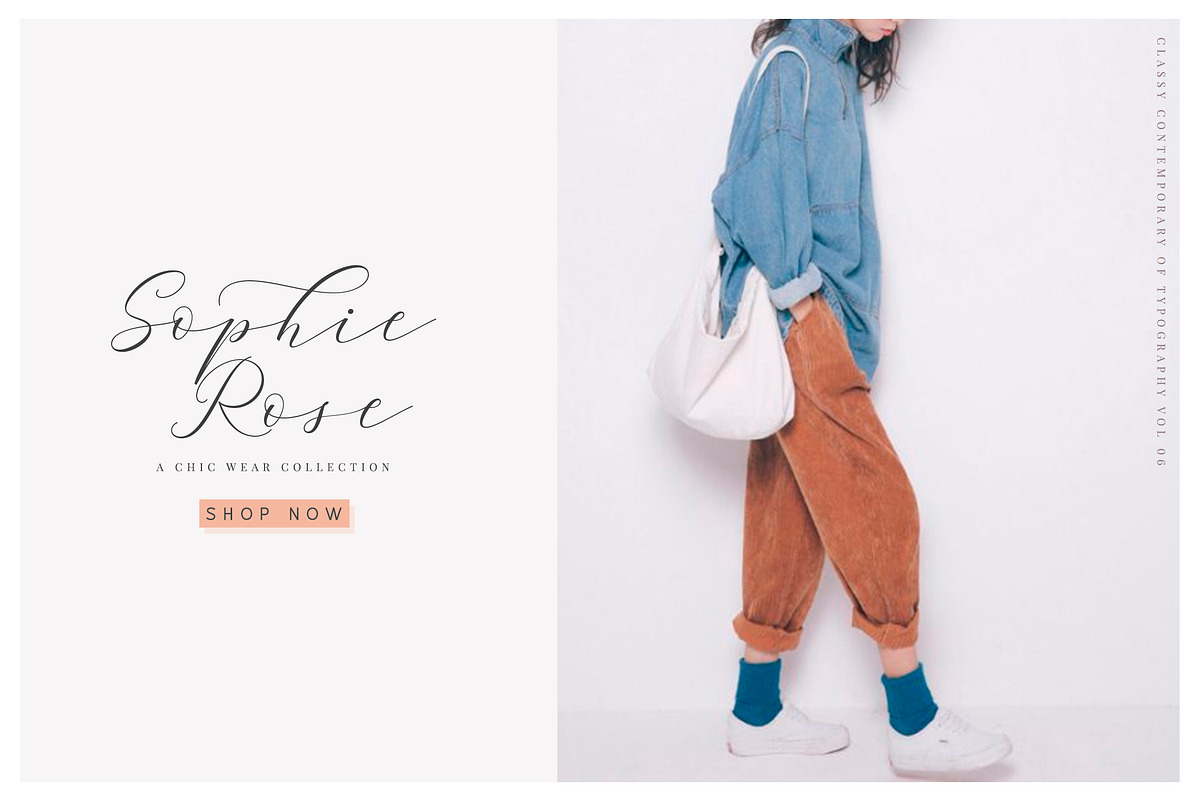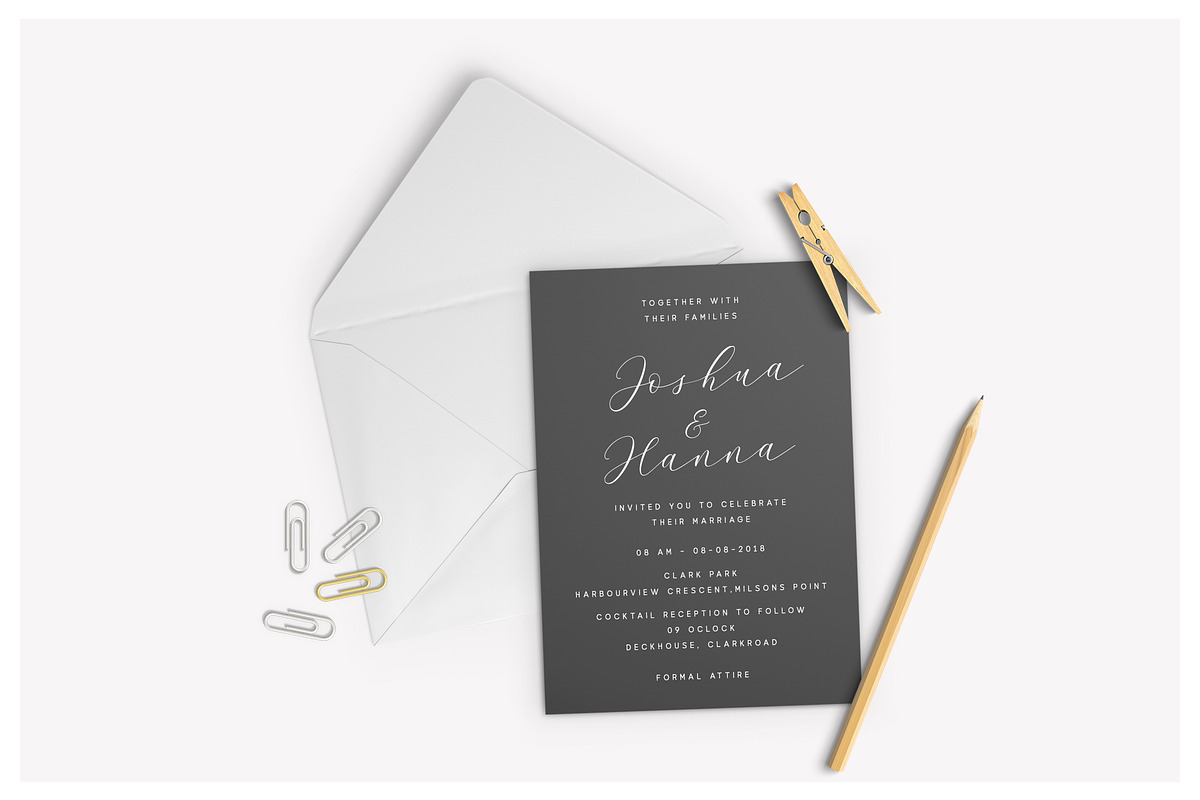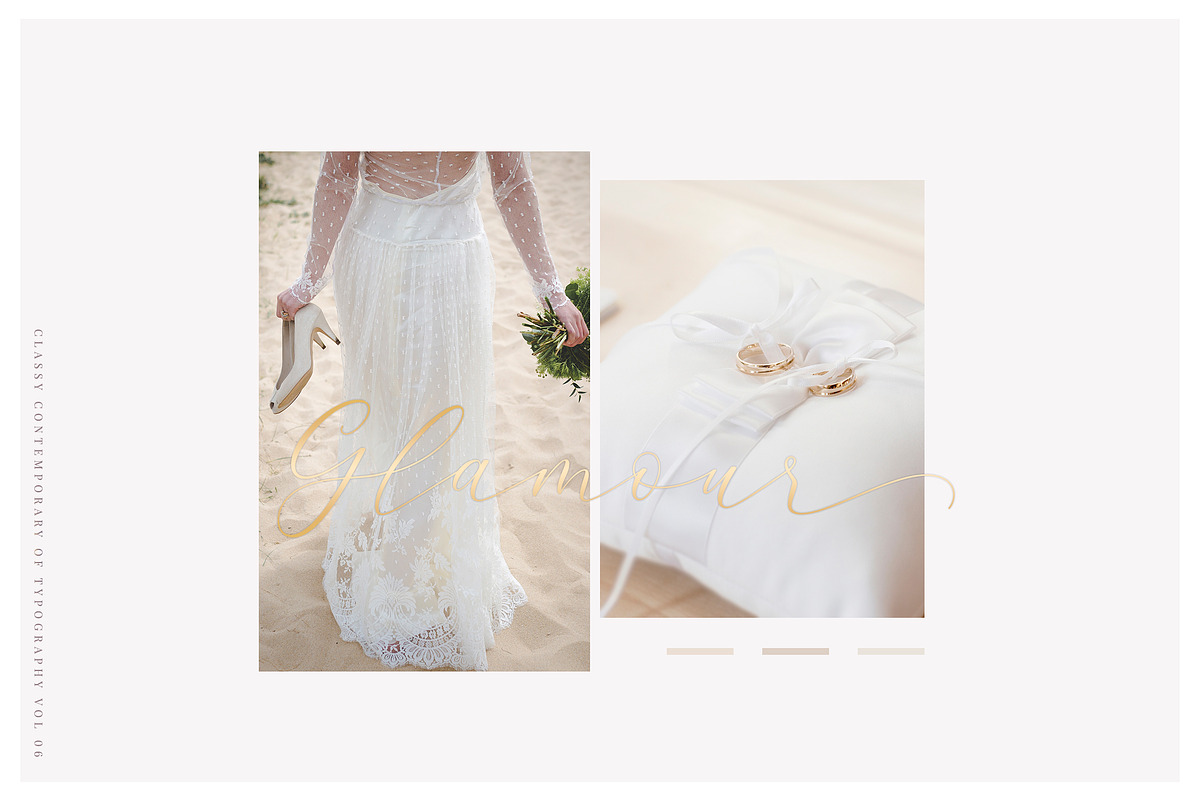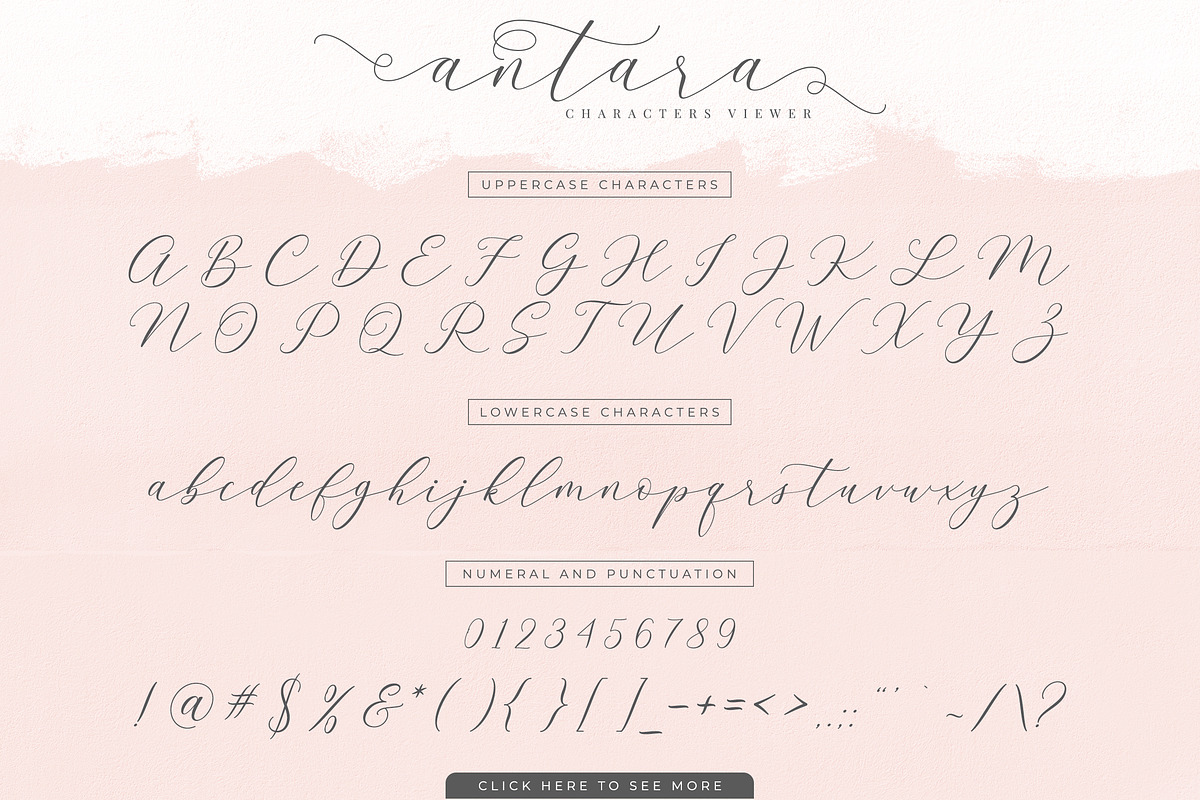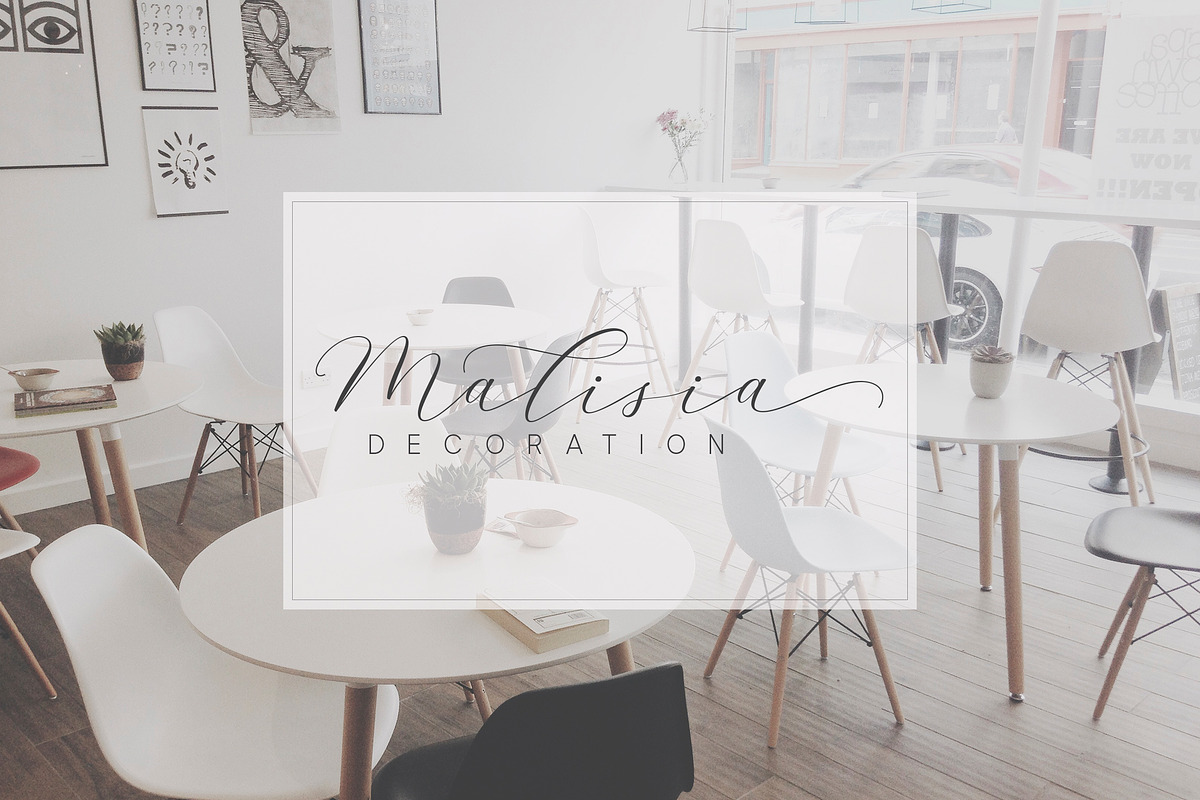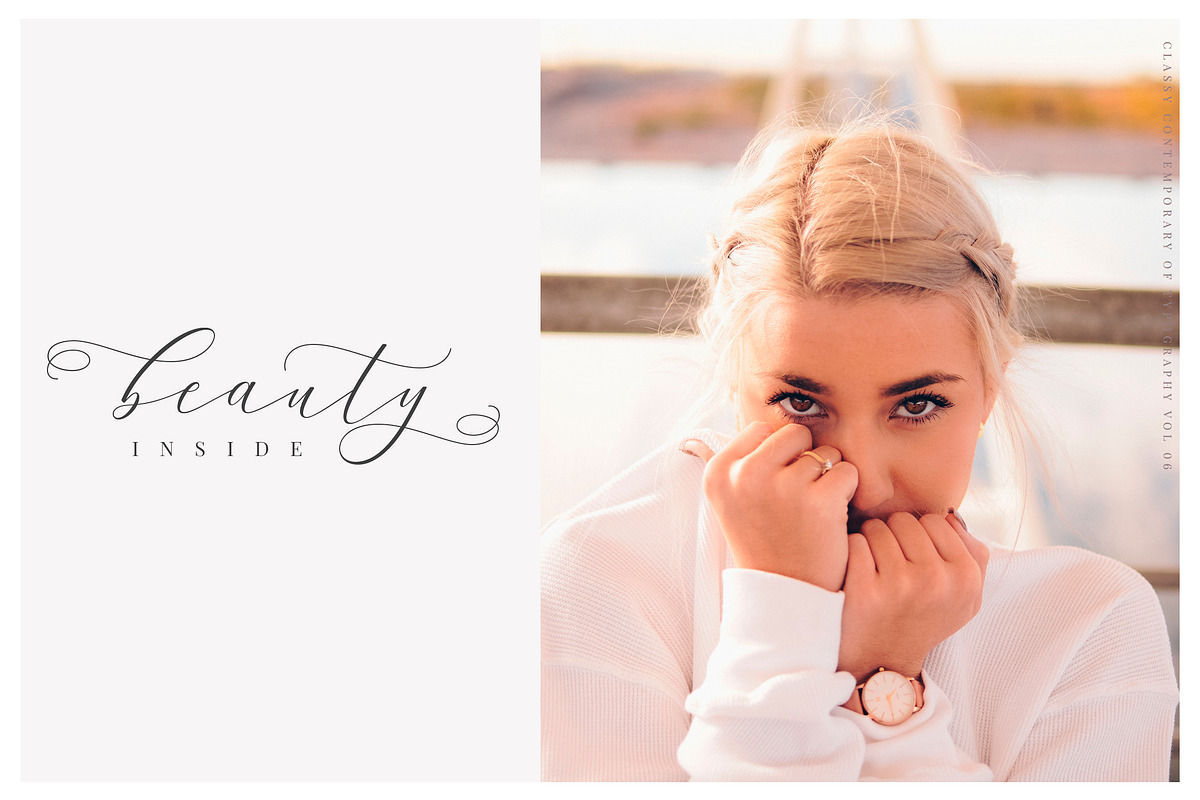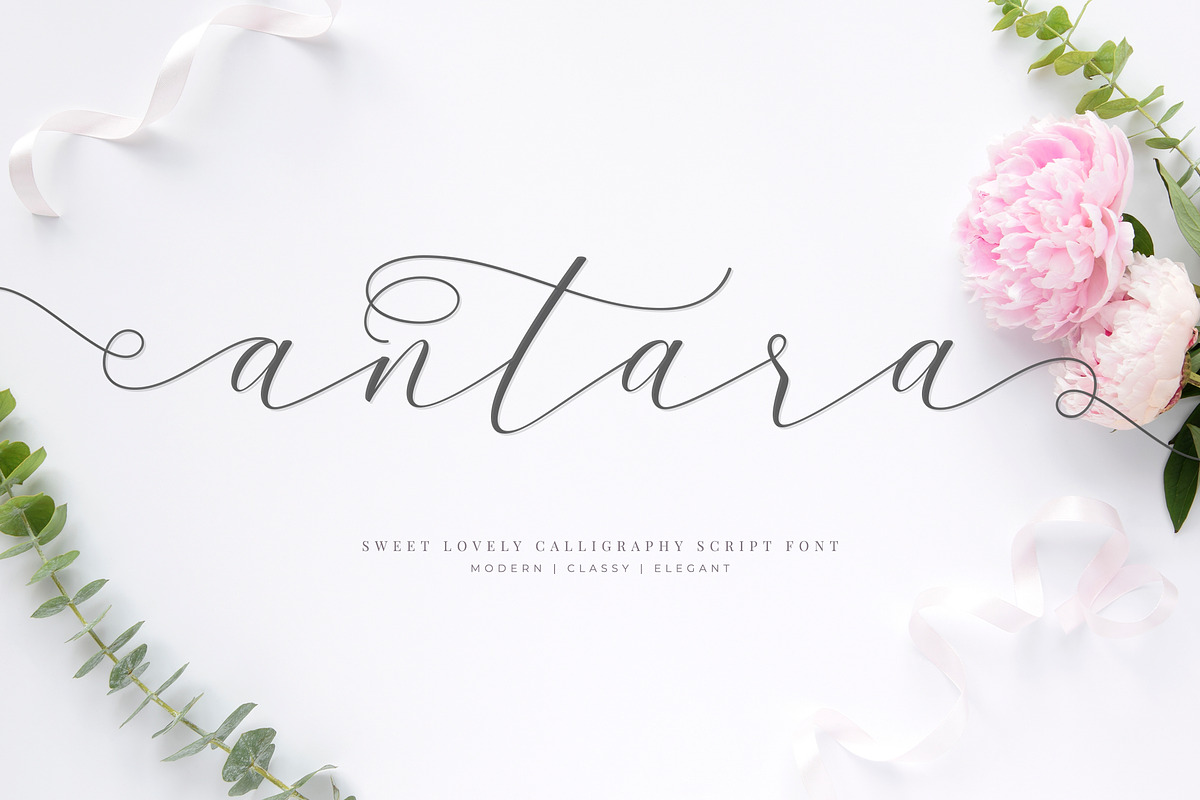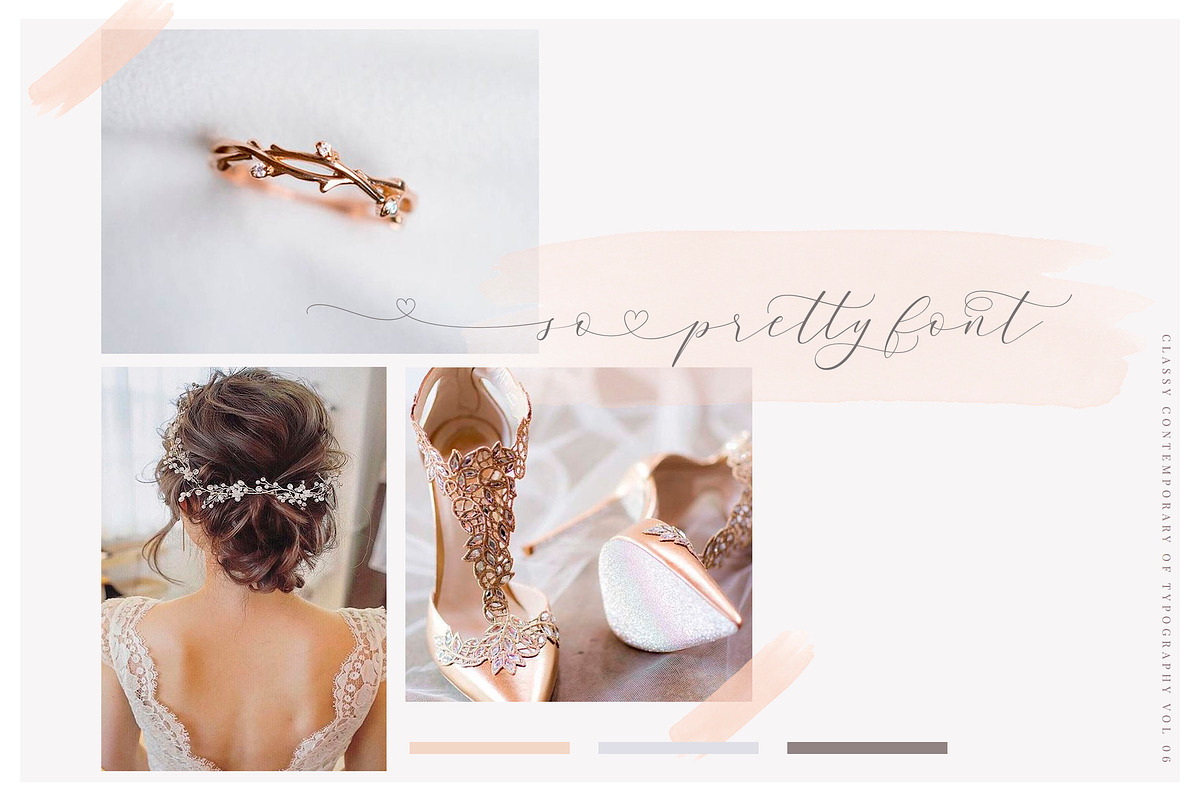
Antara Script Wedding Font
Antara is a classy handwriting font with a distinctive curve, inside with some interesting features that are perfect for a feminine-style project.
Antara have a features start and end swashed on lowercase letters and with joining love, very beautiful ligature and this font is very qualified when you use for wedding design projects, fashion, greeting, invitation, social media and much more.
Initial and Terminal forms
Lowercase joining love